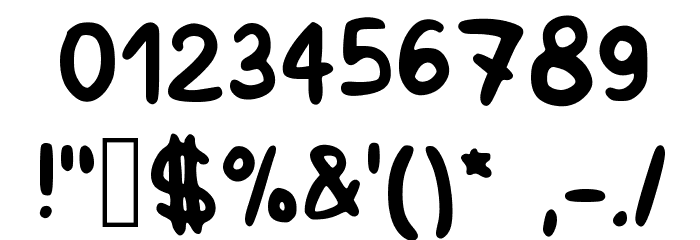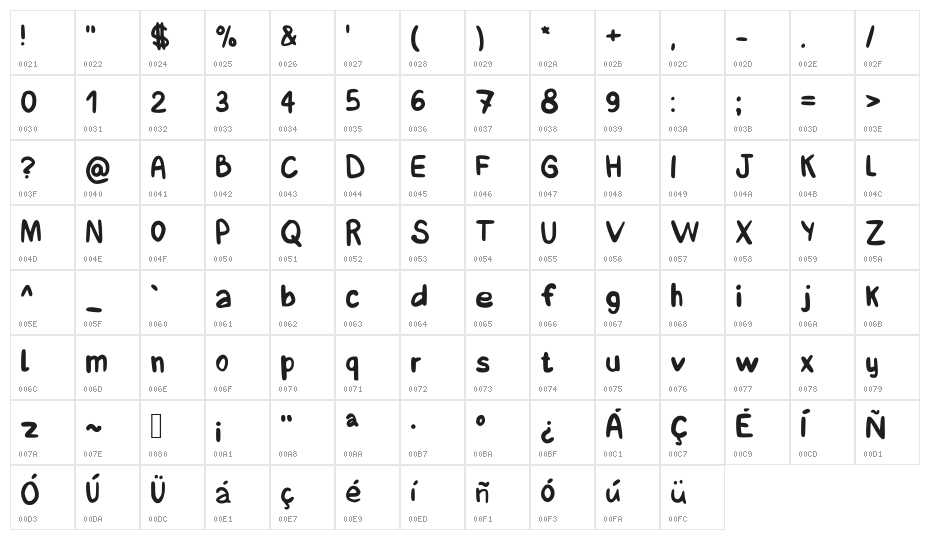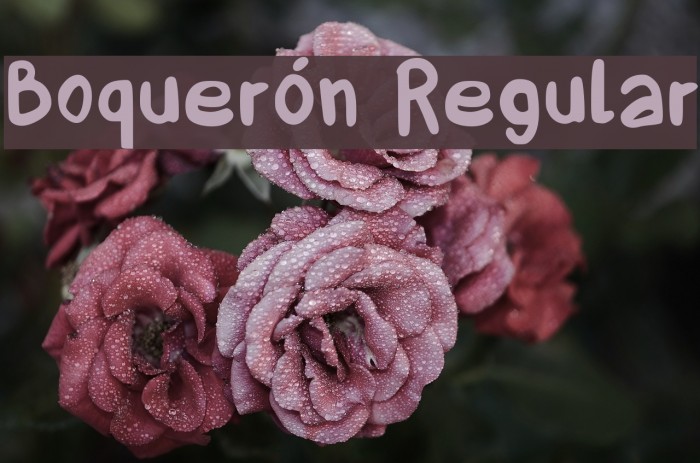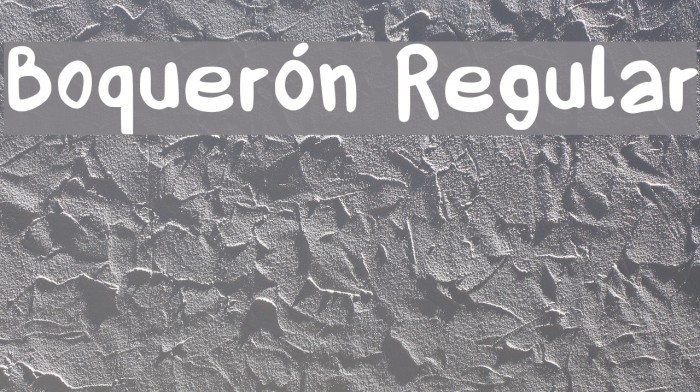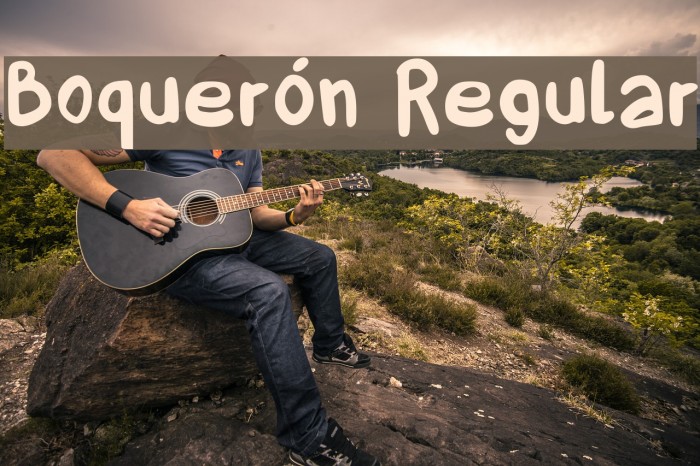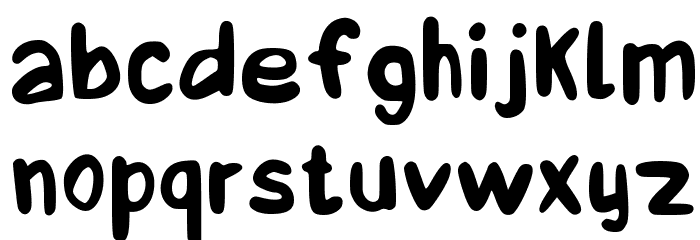
Boquerón Regular Font
Boquerón Regular Description
This playful and bold font features rounded, thick strokes that give it a friendly and approachable appearance. The characters are slightly irregular, adding a hand-drawn feel that enhances its casual style. The uppercase and lowercase letters maintain a consistent weight, while the numerals and special characters complement the overall design. Its boldness and unique character shapes make it stand out, making it ideal for projects that require a touch of whimsy and creativity.
| Proposed Projects | Great for children's books, playful branding, posters, and casual invitations. |